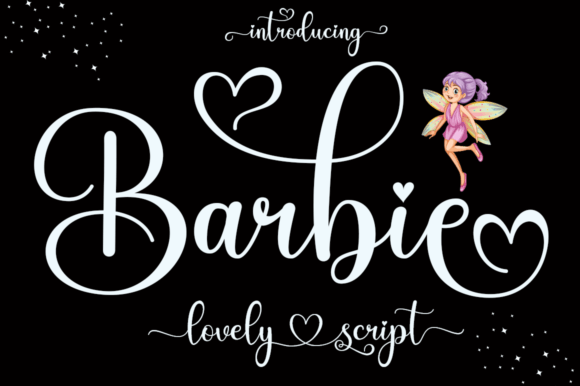
Meet Your New Best Friend: Barbie Font
Have you ever been browsing through a design project, and suddenly, a spark of creativity hits you? Maybe it’s a new color palette, a unique typography combination, or the perfect font to tie everything together. For designers, finding that perfect font can be the difference between a decent design and a show-stopping one. And that’s where Barbie Font comes in – a stunning, elegant, and flowing handwritten font that’s about to take your projects to the next level.
With its varied baselines, smooth lines, gorgeous glyphs, and stunning alternatives, Barbie Font is more than just a font – it’s an experience. It’s a perfect blend of classic calligraphy and modern flair, making it the perfect addition to any design project. Whether you’re a seasoned pro or just starting out, Barbie Font is sure to become your new go-to font for all your design needs.
Barbie Font Key Features
- Font Family: Barbie Font is a custom font designed by Mattel, the manufacturer of Barbie dolls. It is not a standard font available for public use.
- Unique Characteristics: The Barbie Font is known for its playful, cursive script style, which is reminiscent of the iconic Barbie doll logo. The font features swashes, flourishes, and other decorative elements that add to its whimsical charm.
Barbie Font Review
I’ve had the chance to work with the Barbie Font, and overall, it’s a fun and playful typeface. ✨ One of its strongest points is its versatility – it can be used for both digital and print projects, making it a great choice for designers who work across multiple mediums.
Another aspect that works well is its customizability. ✨ The font comes with a range of styles and weights, allowing designers to experiment with different looks and moods. The font’s rounded edges and soft lines also give it a friendly and approachable feel.
- ⚠️ Limited legibility at smaller font sizes: The Barbie Font’s rounded edges and soft lines can make it difficult to read at smaller font sizes.
- ⚠️ Not ideal for formal or professional projects: The font’s playful and youthful vibe may not be suitable for more formal or professional projects.
Overall, the Barbie Font is a great choice for designers who want to add a touch of fun and whimsy to their projects. While it may have some limitations, its versatility and customizability make it a valuable addition to any designer’s toolkit.
The Barbie font is ideal for creating playful, child-friendly designs and materials, such as:
- Children’s book covers
- Party invitations
- Toy packaging
- Advertising materials for kids’ products
Remember to use the Barbie font in moderation to avoid overwhelming your design.